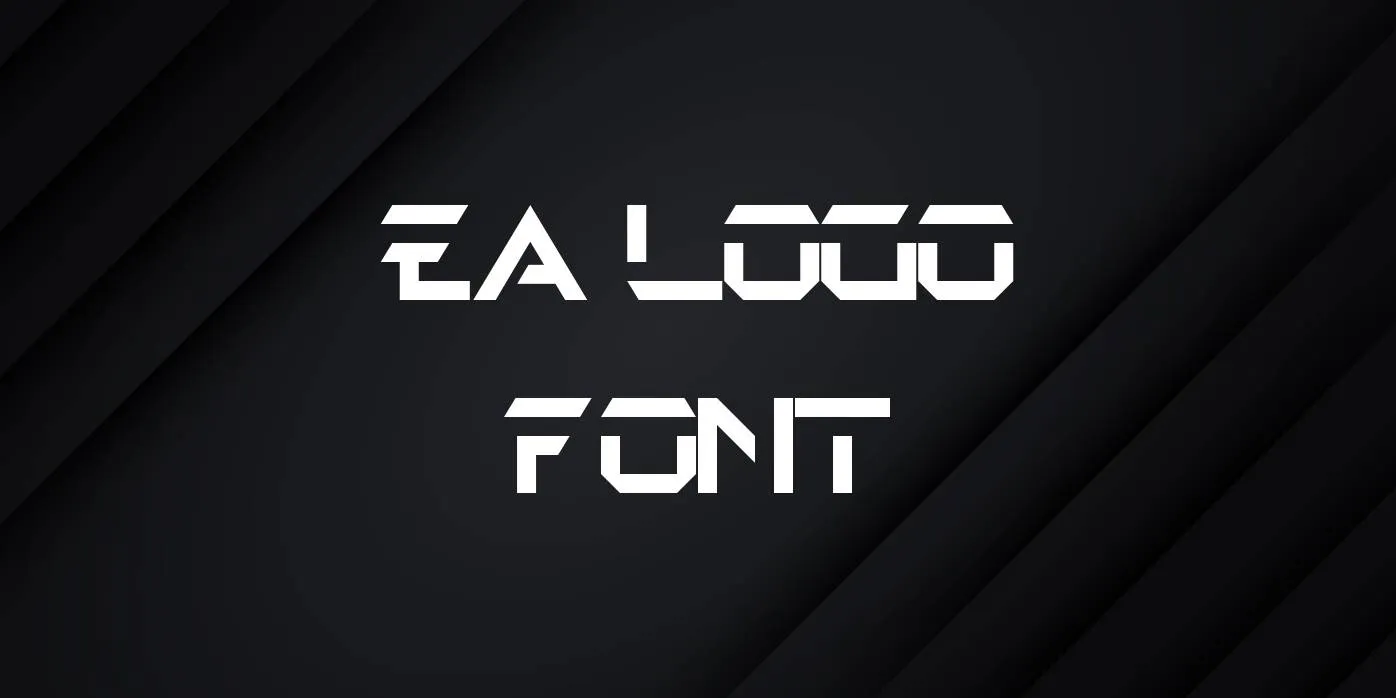
EA Logo Font
Here, we are going to introduce a stylish typeface named EA Logo Font. This stunning font family was developed by 538lyons. This family belongs to the display font family. And it is available in three different styles including Regular, Bold, and Italic.
All of them come with unique text forms. You can use this display typeface for various purposes. This cool font has a great readability level. EA Logo Typeface possesses TrueType features with sharp-edged letters.